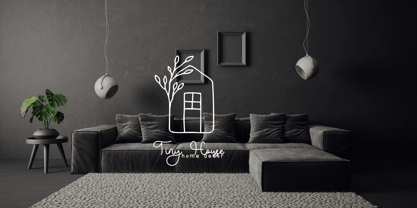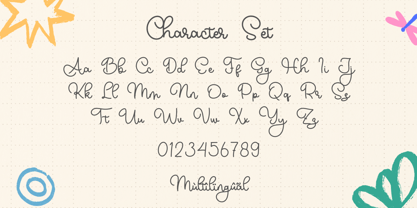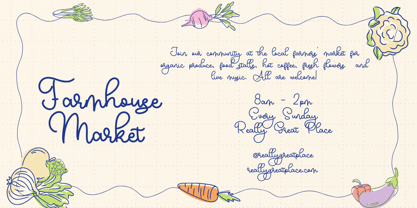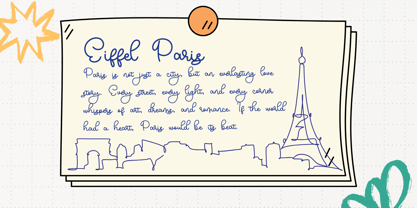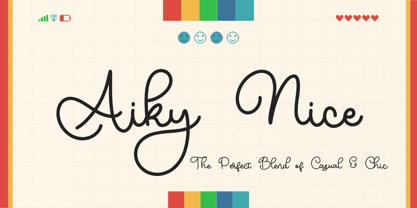
Aiky Nice
by Beary
The Aiky Nice Font Family was designed by Dian Haniffan Hadi and published by Beary. Aiky Nice contains 1 styles. More about this family
Introducing Aiky Nice – a charming monoline script with playful balloon-themed alternates. This font adds warmth and joy to your designs, making them feel fun and inviting. Perfect for branding, invitations, and creative projects, Aiky Nice makes every design stand out effortlessly.
With its smooth and flowing strokes, Aiky Nice combines elegance and simplicity. Its unique alternates, decorated with adorable balloon-like details, bring a cheerful and lighthearted touch to your typography.
Ideal for logos, branding, home décor, packaging, mugs, quotes, posters, shopping bags, t-shirts, book covers, business cards, invitations, greeting cards, labels, photography, watermarks, special events, and other luxury projects.